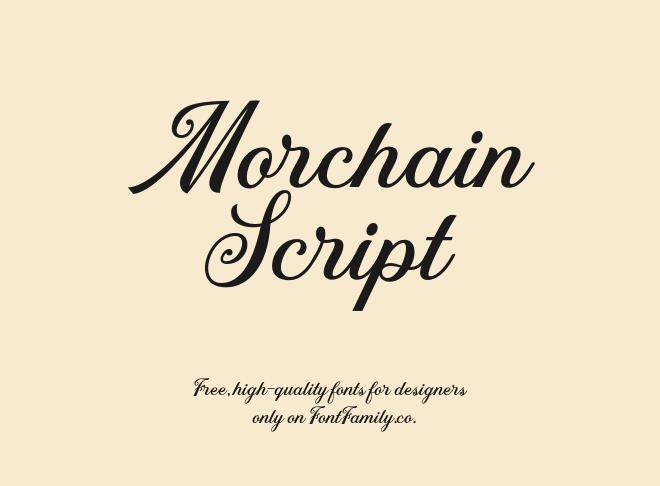
Morchain Script Font
The Morchain Script Font is a beautifully crafted typeface by Creative Tacos. It exudes elegance and sophistication, making it perfect for high-end branding and design projects. The font features a blend of Script, Calligraphy, and Handwritten styles, which adds depth and character to any design. Morchain Script Font is reminiscent of classic calligraphy, but with a modern twist that distinguishes it from other fonts. It is excellent for wedding invitations, logo designs, fashion brands, and any project that requires a touch of elegance and personalization. The font is free for personal use, which makes it an ideal choice for designers looking to infuse their projects with a unique and high-end appeal. Its versatility and stylish design make the Morchain Script Font a must-have in any designer's toolkit.